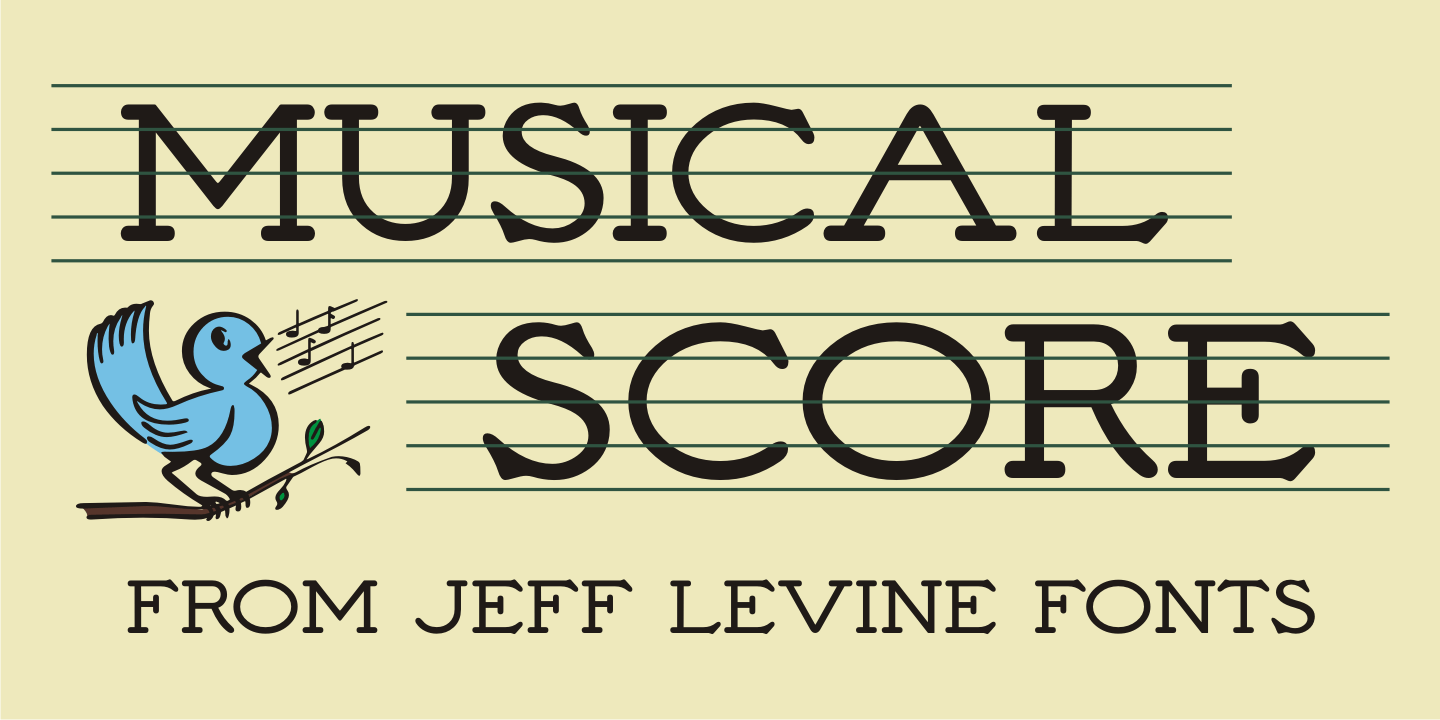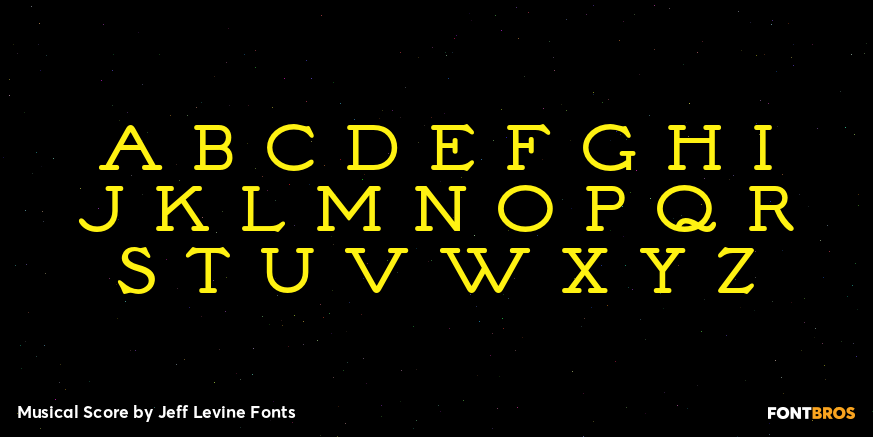
Musical Score
A number of pieces of antique sheet music utilizing the same Roman typeface were the inspirational basis for Musical Score JNL. This antique design closely resembles pen lettering and its hand-made charm due to the rounded stroke ends and varying character widths.
Informal, yet attractive - the character design evokes the feeling of the turn of the previous century and simplicity of life at that time.